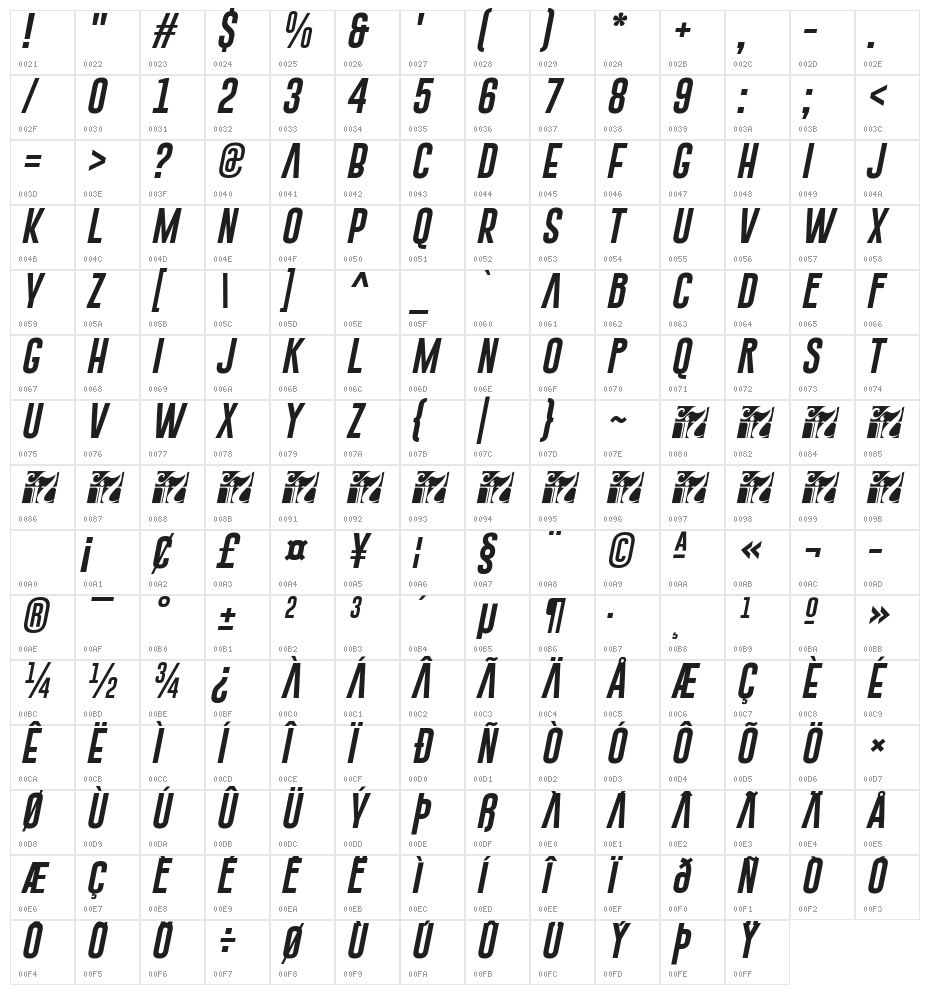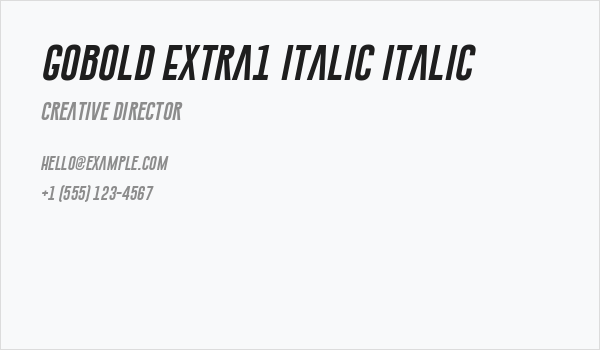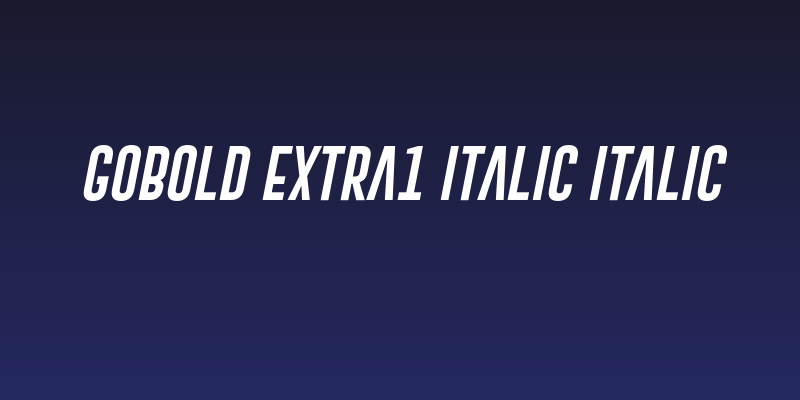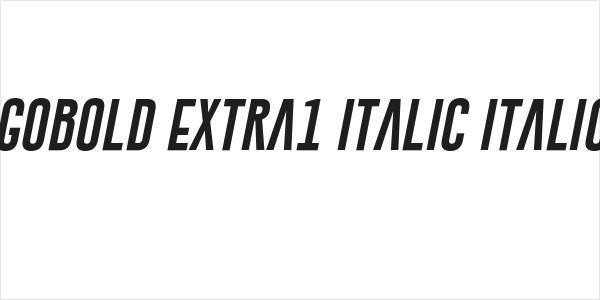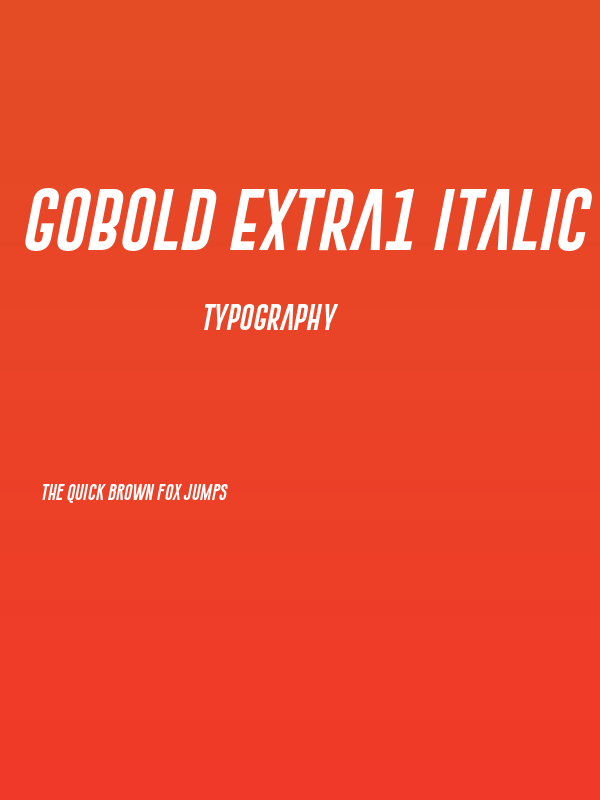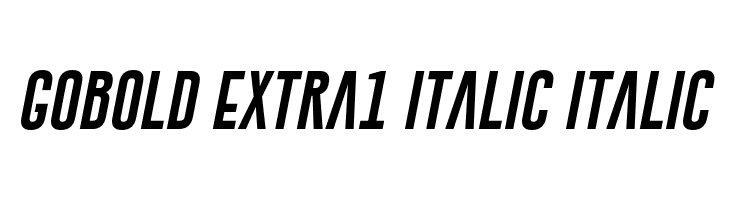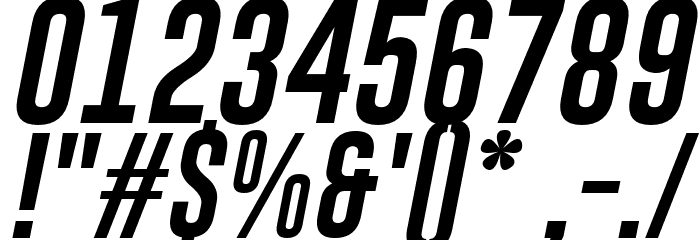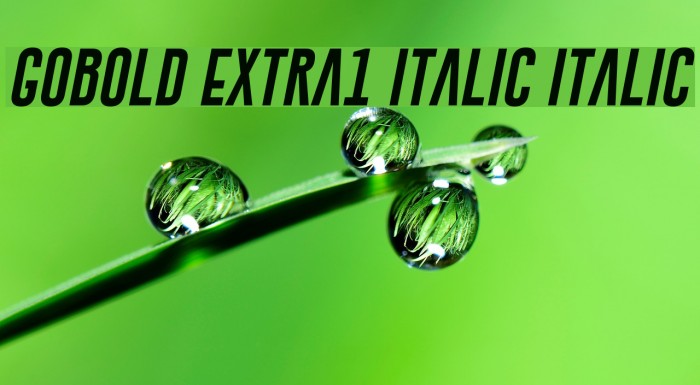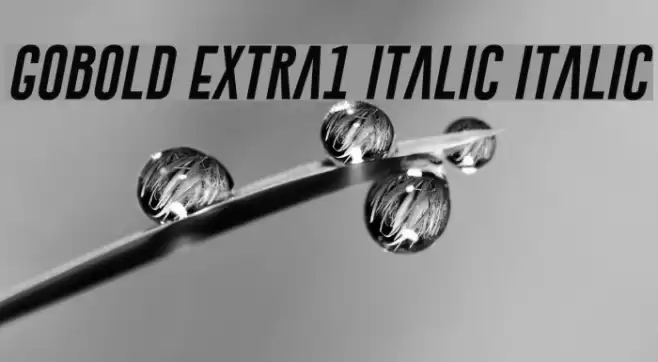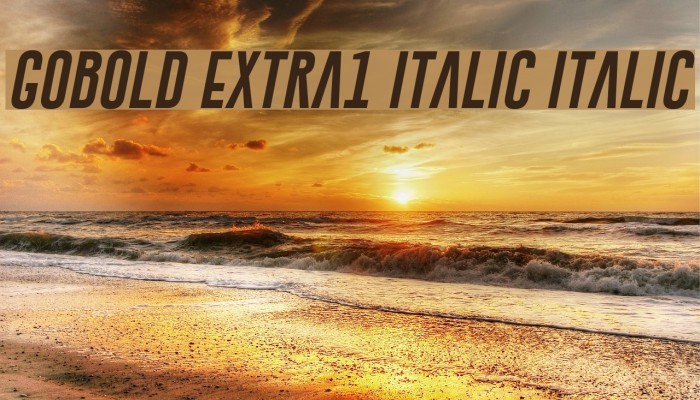
Gobold Extra1 Italic Italic Font
Gobold Extra1 Italic Italic Description
This font features a bold and dynamic style with a strong italic slant, giving it a sense of movement and energy. The characters are tall and narrow, contributing to a condensed appearance that maximizes space efficiency. The strokes are consistent in weight, providing a uniform look across all characters. The uppercase and lowercase letters maintain a cohesive design, with sharp angles and clean lines that enhance readability. The numerals and special characters are designed to match the overall aesthetic, ensuring a seamless integration in various text compositions.
| Proposed Projects | Ideal for sports branding, dynamic posters, and modern advertising campaigns. |